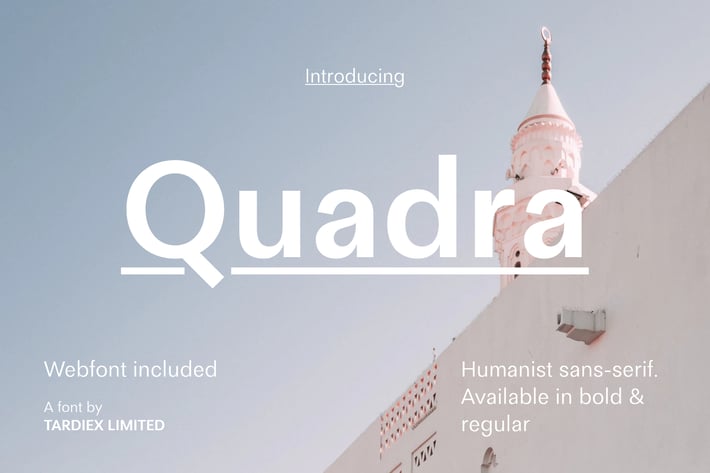
Quadra Sans-Serif + WebFont
Quadra is a modern and Minimal Sans Serif typeface that brings friendly feel. Quadra is equipped with opentype features, including capital spacing, ordinal, fraction and staylistic alternates. The package includes desktop version and webfont.